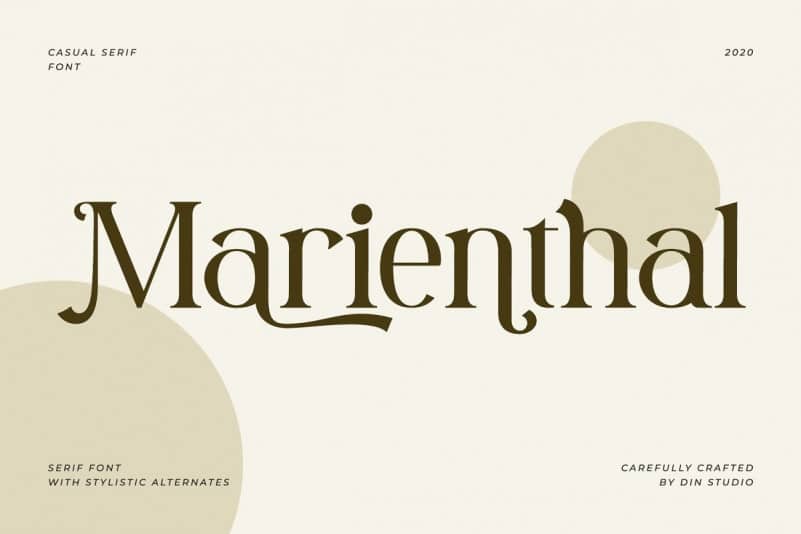
Marienthal Serif Font Free
Marienthal Serif Font is a stylish font that is both retro and bold font. It has vintage, elegant, old school, classy, and retrol. Made from font designer named Din Studio. Made for any professional project branding. It is the best for branding, printing, wedding and quotes. Every letter has a unique and beautiful touch.